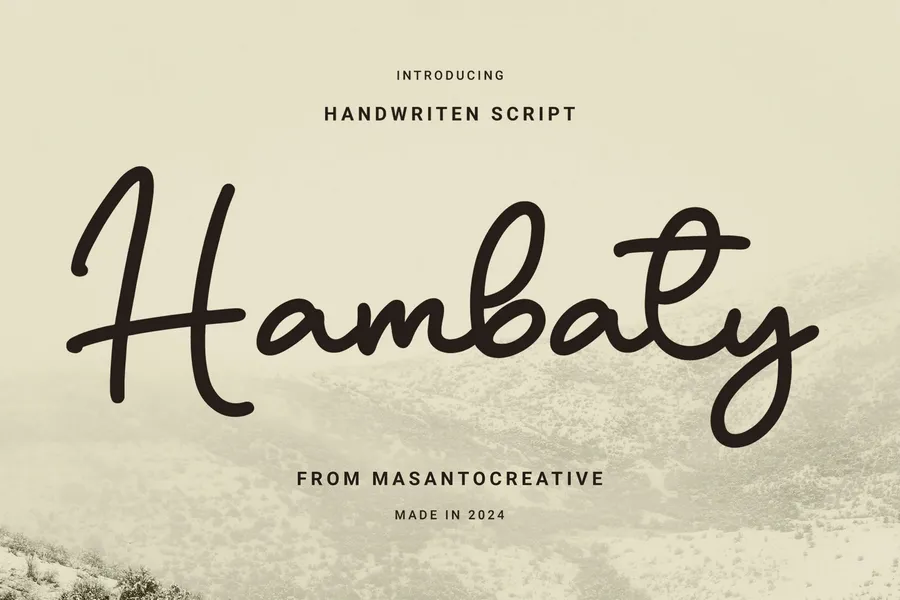
Hambaty – Handwritten Script Typeface
Hambaty is a handwritten script typeface with a casual and natural flow, designed to mimic personal handwriting. Its smooth strokes and consistent rhythm make it suitable for use in branding, social media graphics, quotes, packaging, and personal projects. The font includes uppercase and lowercase characters, numerals, punctuation and ligature & stylistic alternate.
Ligature & Stylistic alternate